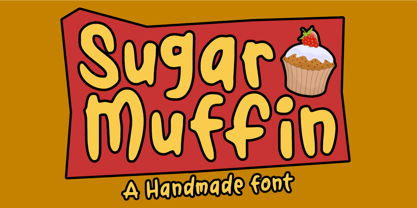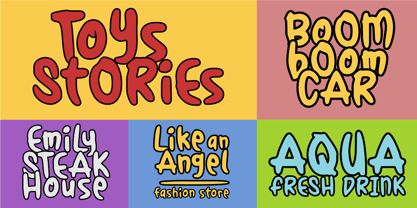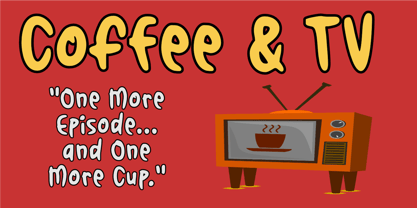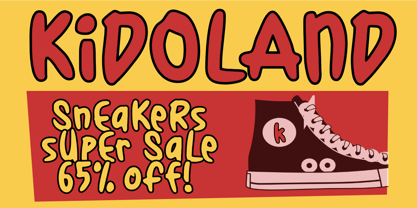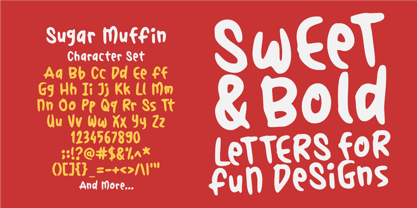
Sugar Muffin
The Sugar Muffin Font Family was designed by Nurul Hidayani and published by Olivetype. Sugar Muffin contains 1 styles.
Sugar Muffin is a playful and bold display font that’s bursting with personality! With its chunky, hand-drawn letterforms and cheerful vibe, this font is perfect for adding a sweet touch to your creative projects. Whether you’re designing for kids, making cute product packaging, crafting eye-catching posters, or creating fun social media graphics, Sugar Muffin brings warmth and charm to every design.
Handcrafted with love, Sugar Muffin captures the whimsical essence of a bakery sign, the joyful energy of doodles, and the bold impact of modern display typography. Its smooth yet quirky shapes make it highly readable while keeping that handmade feel intact.